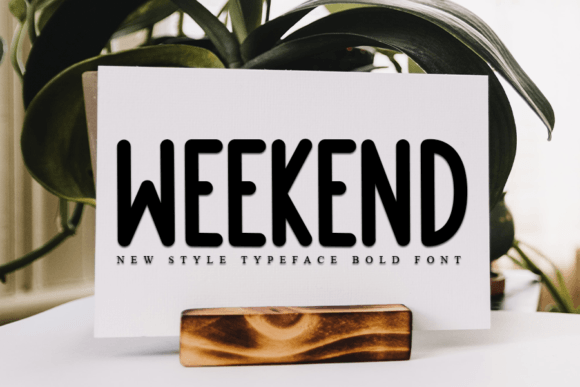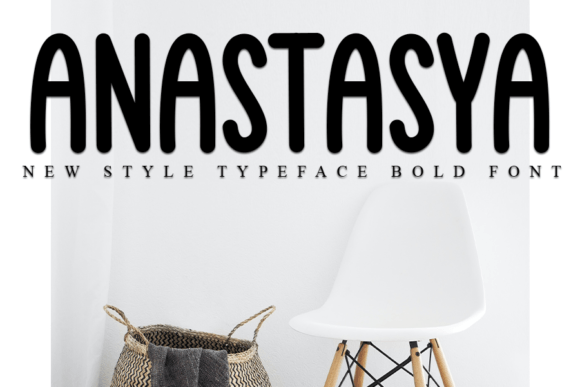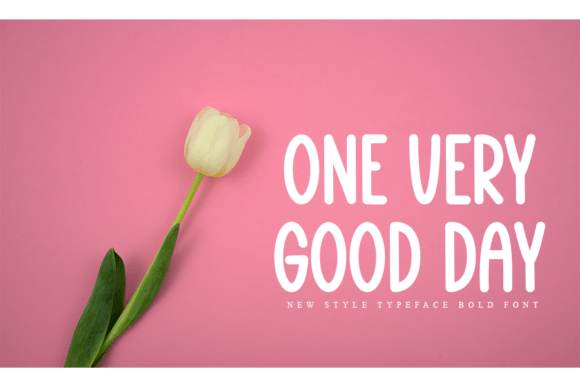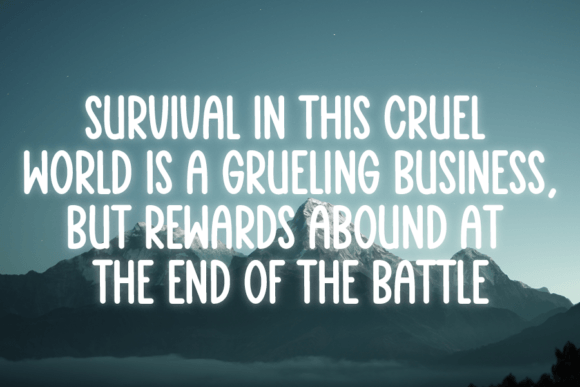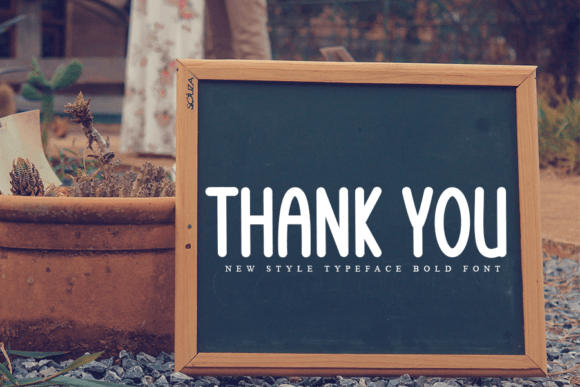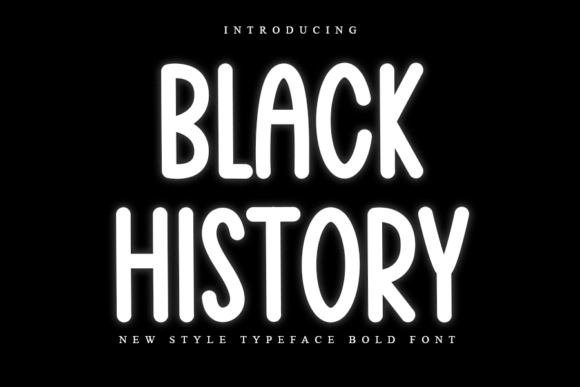
Discover the Power of Black History Font: Elevate Your Designs with Style and Significance
Are you tired of using the same old fonts for your designs, crafts, and presentations? Look no further! Introducing Black History Font, a cool and modern display font that’s about to become your new go-to for all occasions. In this article, we’ll dive into the world of Black History Font, exploring its features, uses, and benefits for designers and crafters alike.
What is Black History Font?
Black History Font is a stylish and contemporary display font designed to make a statement. Its sleek lines, bold curves, and edgy vibe make it perfect for a wide range of applications, from digital designs and presentations to crafts, greeting cards, and more. Whether you’re a professional designer or a crafty enthusiast, this font is sure to elevate your work and add a touch of sophistication.
Key Features of Black History Font
- Modern and sleek design: Black History Font boasts a fresh and modern look that’s sure to grab attention.
- Versatile: Use it for various projects, including digital designs, presentations, crafts, greeting cards, and more.
- Easy to read: Despite its bold and edgy design, Black History Font remains clear and easy to read, making it perfect for headlines, titles, and short texts.
- High-quality: This font is designed with high-quality and precision, ensuring it looks great in any size or resolution.
Uses of Black History Font
Black History Font is an incredibly versatile font that can be used in a variety of contexts. Here are some ideas to get you started:
- Crafts: Add a touch of elegance to your handmade crafts, such as cards, scrapbook pages, and DIY projects.
- Digital designs: Use Black History Font to create stunning social media graphics, blog posts, and website headers.
- Presentations: Make your presentations more engaging and professional with this font’s sleek and modern design.
- Greeting cards: Create beautiful and heartfelt greeting cards for special occasions, such as birthdays, holidays, and anniversaries.
Benefits of Using Black History Font
So, why choose Black History Font for your designs and crafts? Here are some benefits to consider:
- Unique and distinctive: Stand out from the crowd with a font that’s both stylish and memorable.
- Time-saving: With Black History Font, you can create professional-looking designs and crafts in no time.
Tips and Tricks for Using Black History Font
To get the most out of Black History Font, here are some tips and tricks to keep in mind:
- Experiment with colors: Try pairing Black History Font with different colors to create unique and eye-catching designs.
- Play with sizes: Use Black History Font in various sizes to add emphasis and create visual hierarchy.
- Mix and match: Combine Black History Font with other fonts to create interesting and dynamic designs.